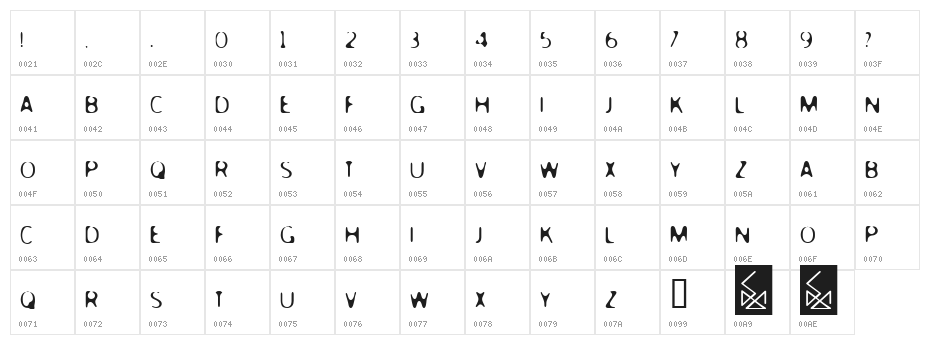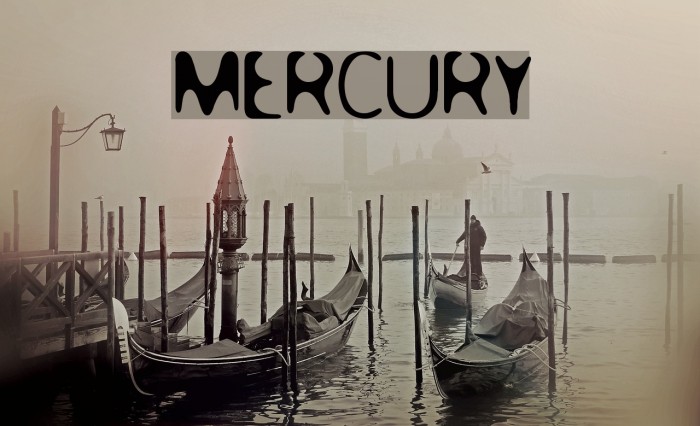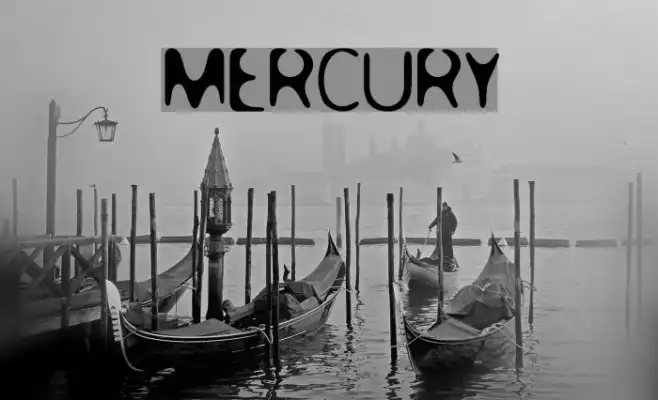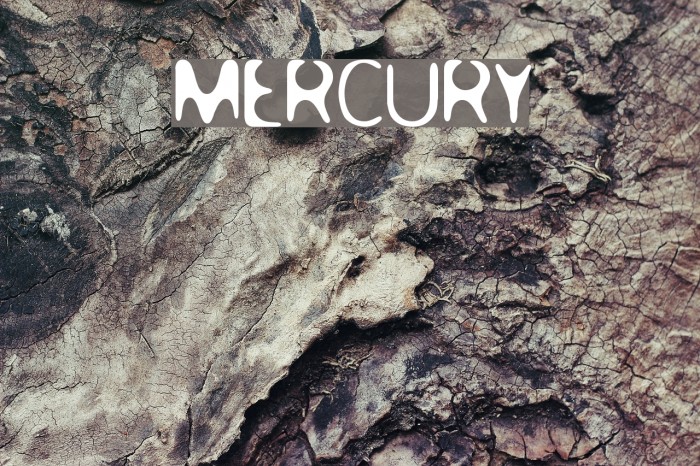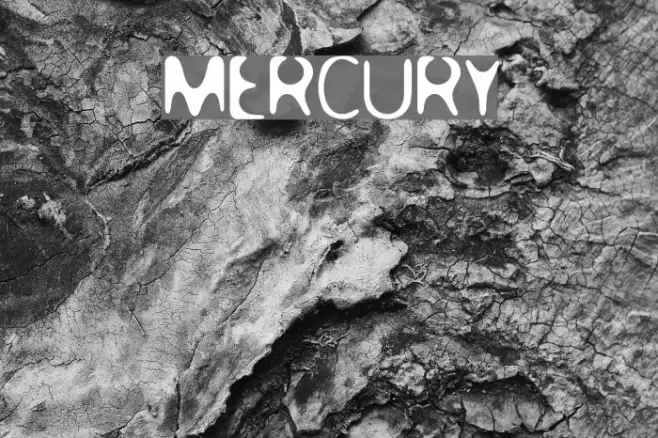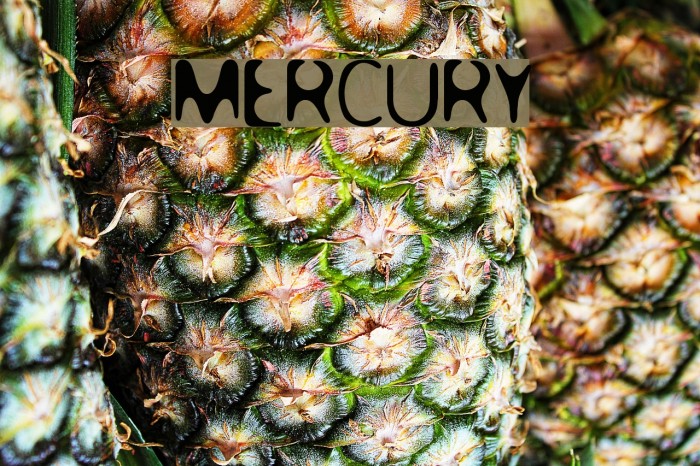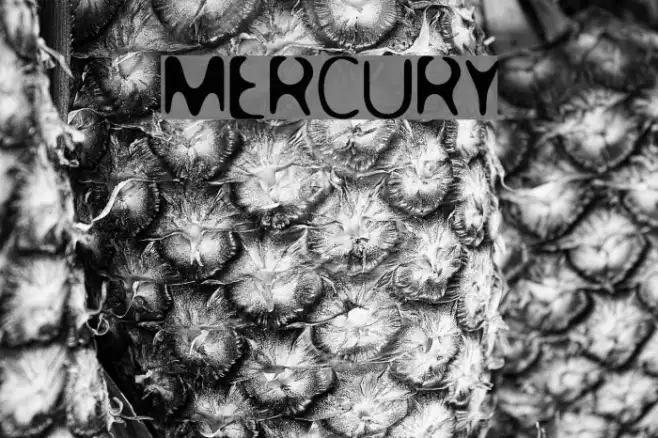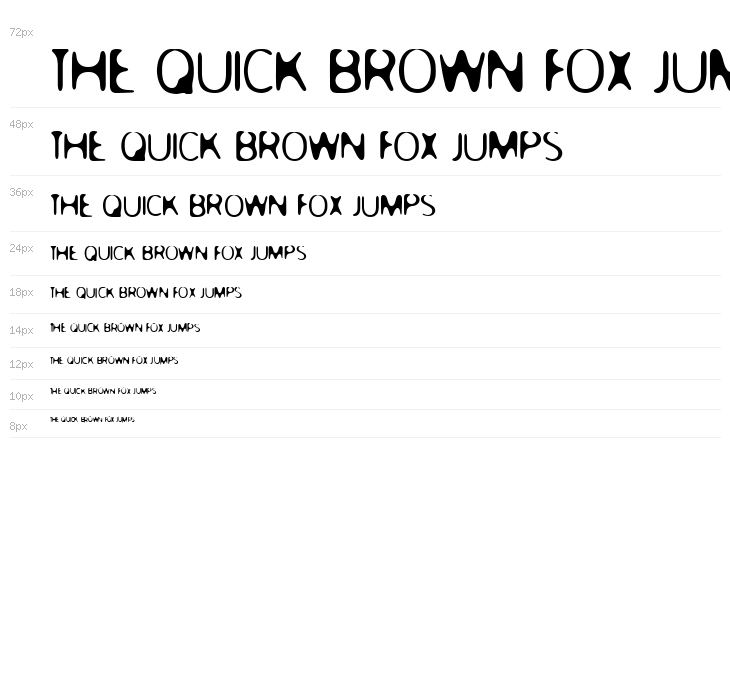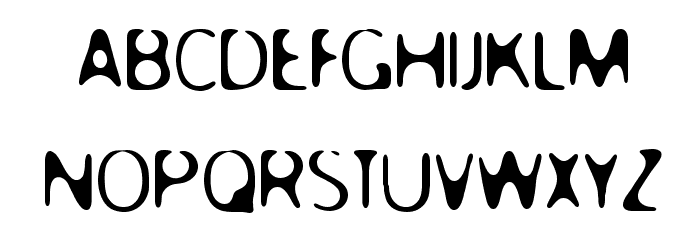
MERCURY Font
MERCURY Description
This font features a unique, wavy design that gives each character a fluid and dynamic appearance. The uppercase and lowercase letters maintain a consistent style, with rounded edges and varying stroke thickness that create a sense of movement. The numbers follow the same aesthetic, ensuring uniformity across all characters. The special characters are creatively integrated, maintaining the overall theme. This font's playful and artistic style makes it stand out, ideal for projects that require a touch of creativity and flair.
| Proposed Projects | Ideal for creative projects such as posters, album covers, and branding materials that require a distinctive and artistic touch. |